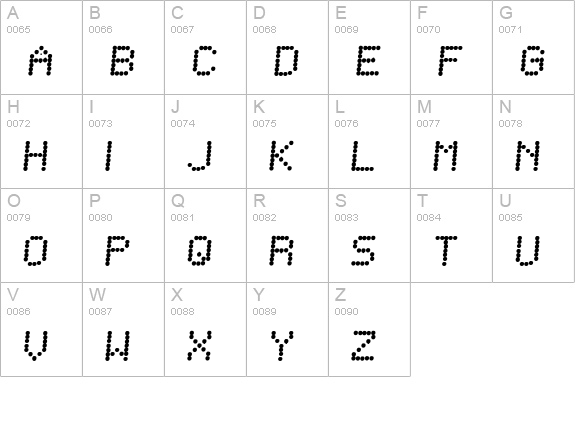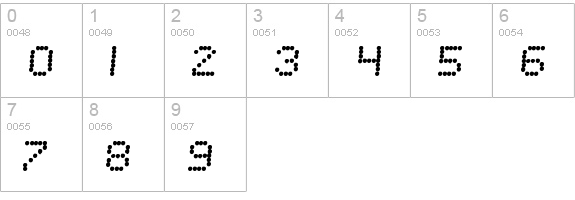
Telegraphic Bold Italic is a strong, high-contrast, italic variant in the Telegraphic typeface family \xE2\x80\x94 well suited to headlines, attention-grabbing titles, and strong calls-to-action.
Telegraphic Bold Italic font is a striking and dynamic typeface that exudes confidence and sophistication. Its bold and italic design adds a touch of elegance and flair to any project or design. With its precise and sharp letterforms, Telegraphic Bold Italic font commands attention and makes a bold statement. It is perfect for headlines, logos, posters, and other creative projects where you want to make a lasting impression. This font is a true standout with its unique combination of boldness and italics, making it a versatile choice for both modern and classic designs. It effortlessly combines the strength of bold typography with the elegance of italic lettering, creating a harmonious balance that is visually appealing. One of the best parts about Telegraphic Bold Italic font is that it is free to download at FontsMarket.com. This means that you can easily access this stunning font without any cost, making it a valuable resource for designers, artists, and creatives alike. Whether you are working on a personal project or a professional design, Telegraphic Bold Italic font will elevate your work to new heights. Its eye-catching style and freely available download make it a must-have in your font collection. So why wait? Visit FontsMarket.com today and add this remarkable font to your creative arsenal.